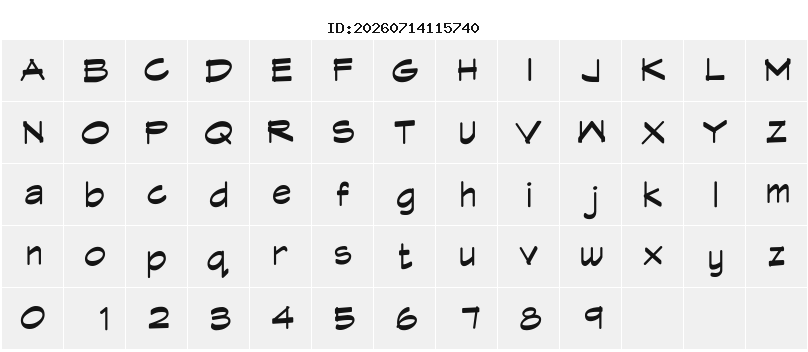
HeavyHand Preview
• Font Name: HeavyHand
• Full Font Name: HeavyHand
About HeavyHand.ttf
HeavyHand.ttf is a modern, elegant sans-serif font designed for ultimate readability and visual harmony. Perfect for branding, headlines, web design, and print materials.